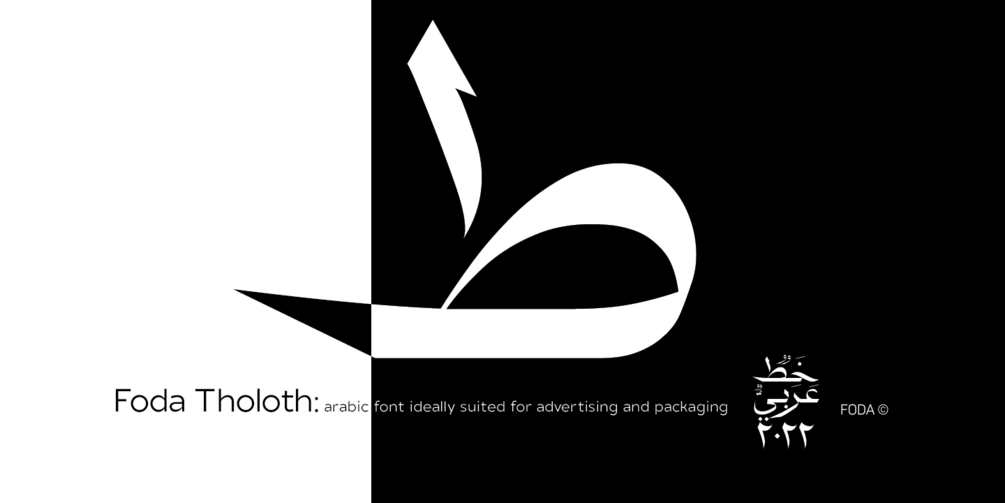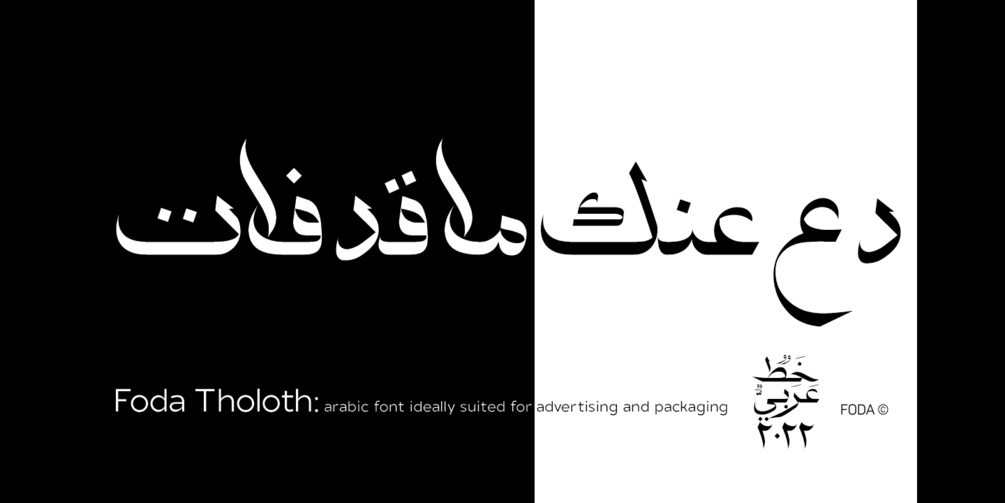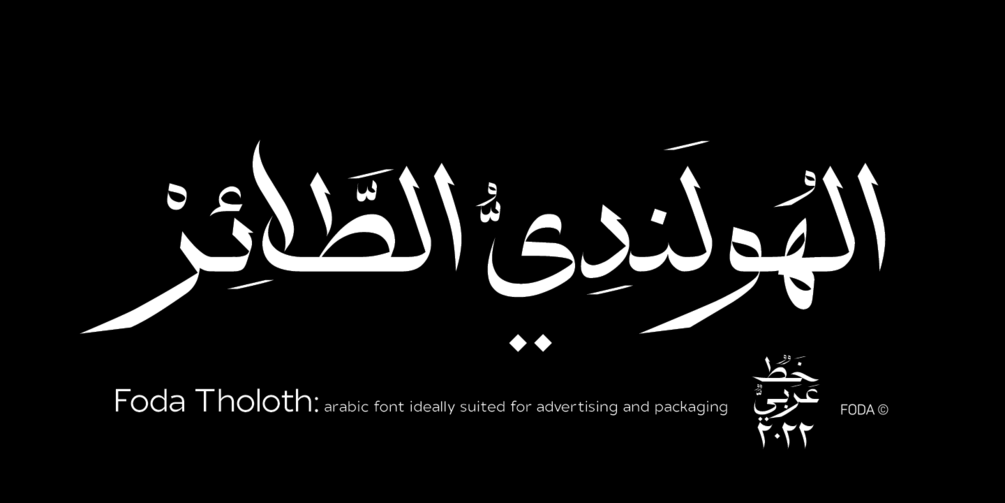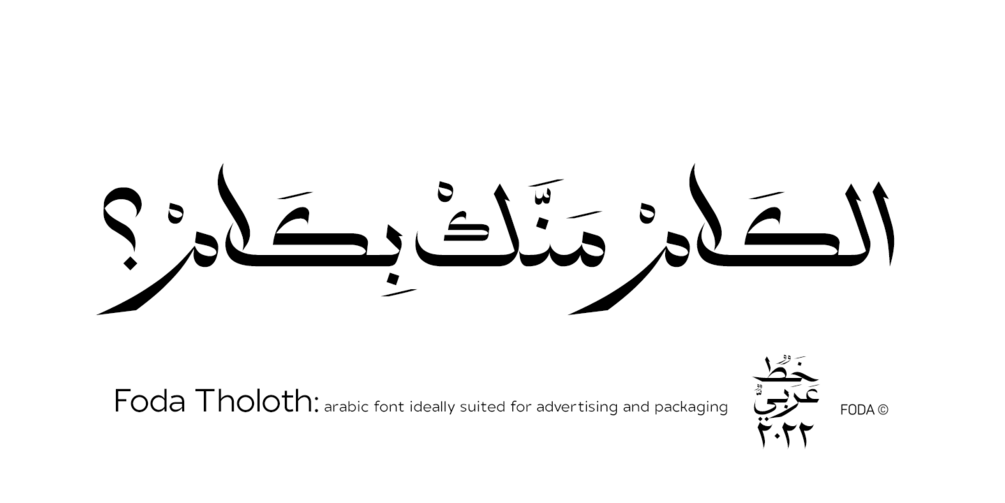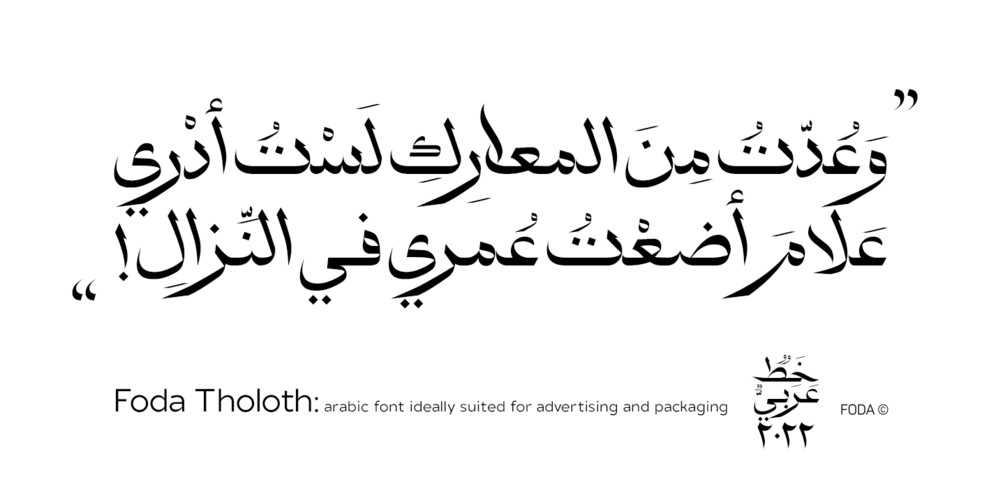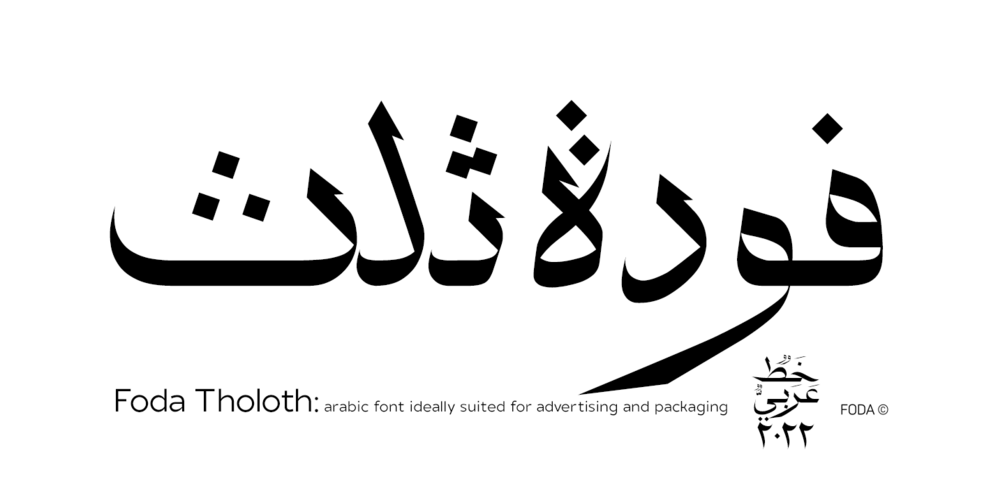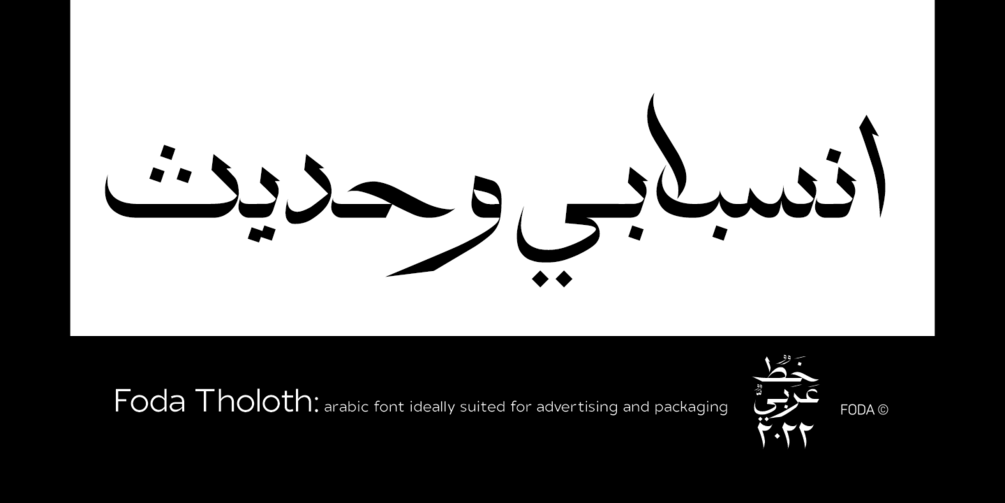
Foda font
Foda Tholoth font is to reflect the beauty of its original Arabic and Islamic calligraphy.
This font can be used headlines and Quranic verses.
Foda Tholoth is designed by Foda & Esraa Amer and manufactured by Ahmed Eraqi.
Foda Tholoth font is to reflect the beauty of its original Arabic and Islamic calligraphy. This font can be used headlines and Quranic verses. Foda Tholoth is designed by Foda & Esraa Amer and manufactured by Ahmed Eraqi.